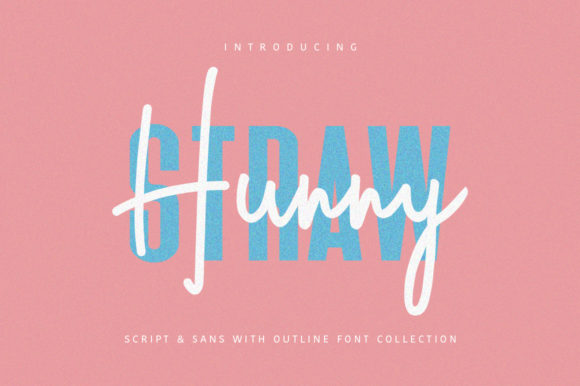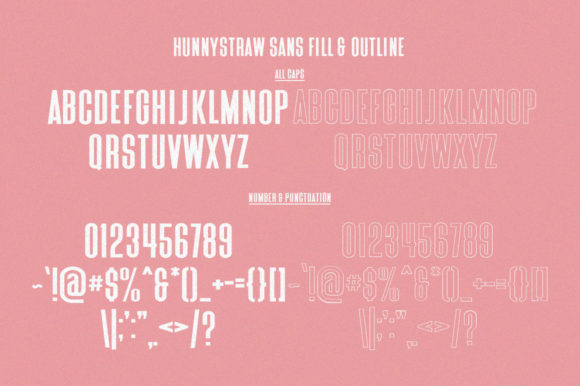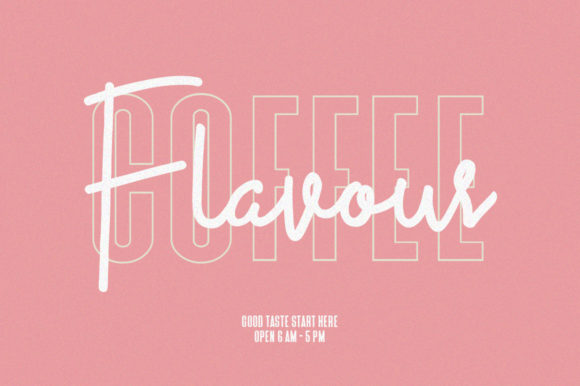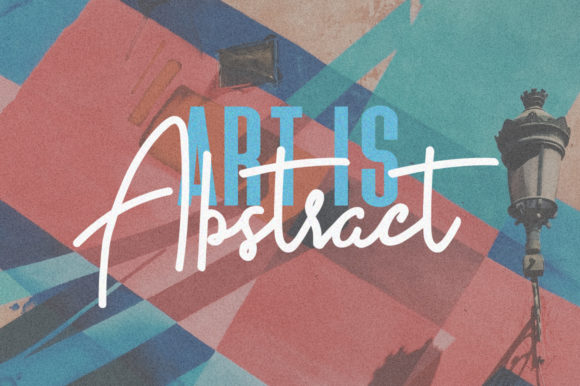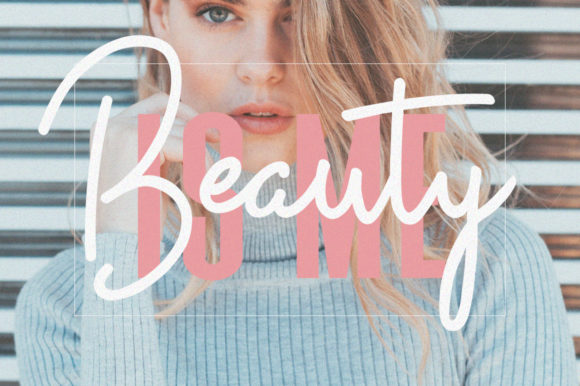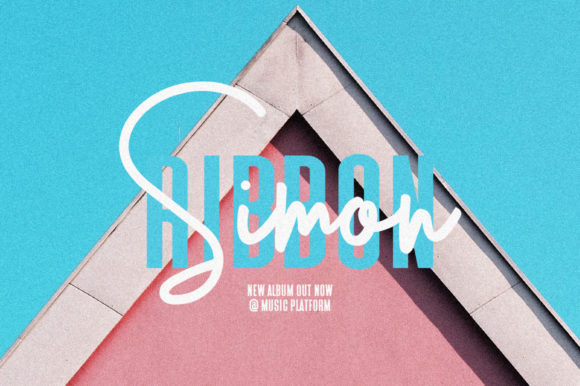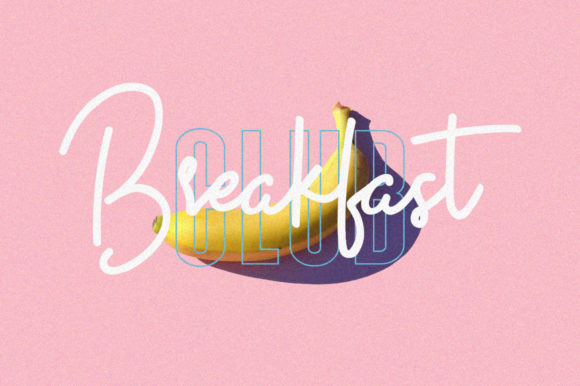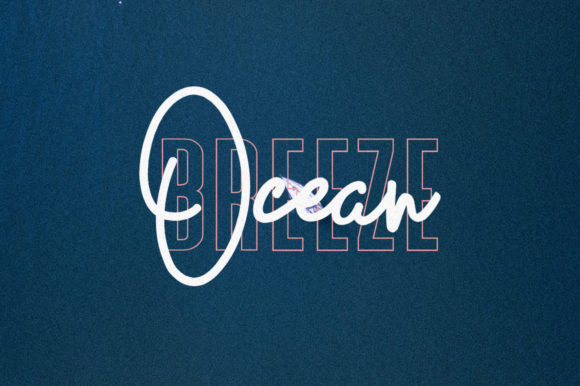
Hunny Straw Font
About Hunny Straw Font
Hunny Straw is a lovely duo font (sans serif and script). Incredibly versatile, this font is the right match for a large set designs, elevating them to the highest levels. Add it to your favorite creative ideas and notice how it makes them come alive!